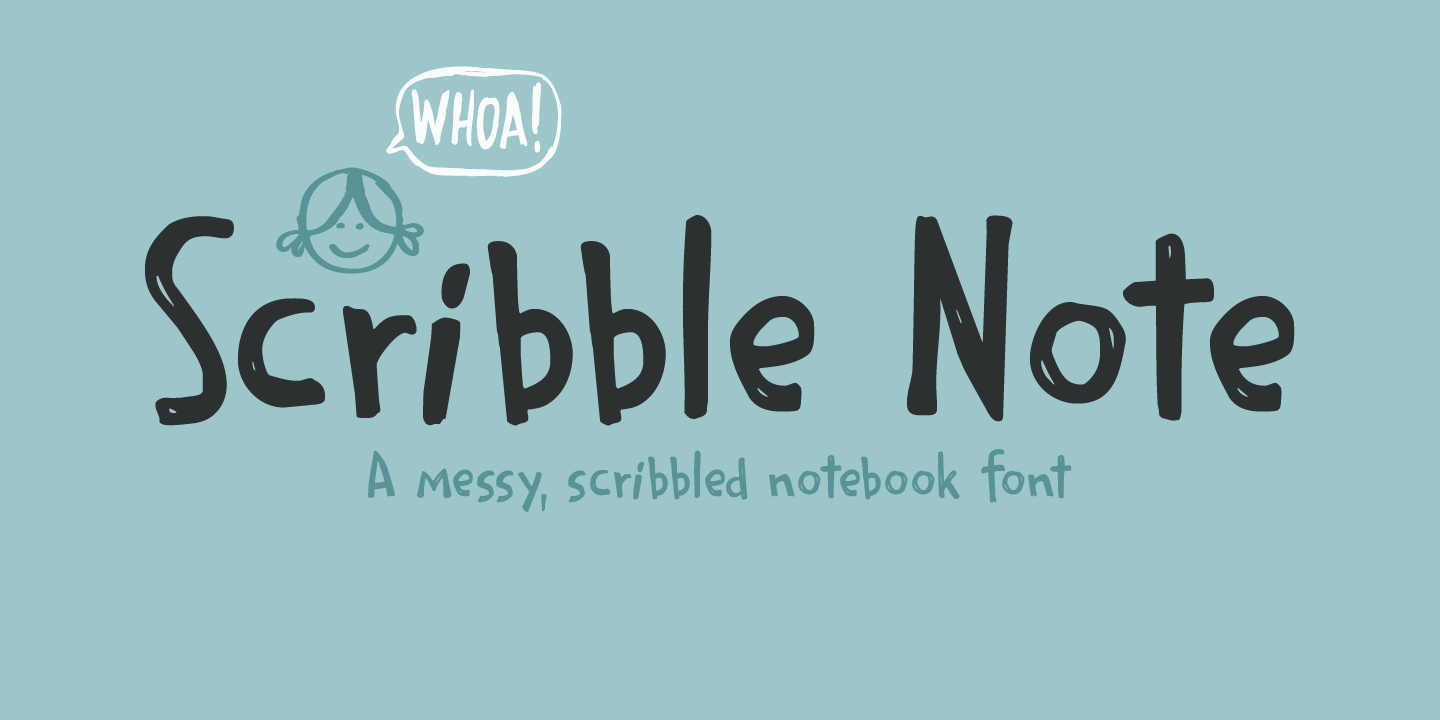
The Scribble Note Font is perfect for handwritten journals, personal diary designs, casual greeting cards, sketch-style artwork, authentic note-taking apps, creative workshop materials, artisan product labels, bohemian branding projects, organic food packaging, and artistic social media posts.
What makes the Scribble Note Font exciting is its authentic handwritten charm that perfectly captures the spontaneous energy and personal touch of genuine pen-and-paper communication. This delightful typeface features natural irregularities, organic flow, and human imperfections that create an intimate, personal connection with readers. Each character appears freshly written with a favorite pen, bringing warmth and authenticity that digital perfection simply cannot replicate.
The Scribble Note Font family includes regular, bold, light, and condensed versions, along with decorative doodles, sketched elements, and handwritten ornaments that enhance its authentic appeal across various creative applications.
Whether you're designing personal stationery or creating authentic brand communications, Scribble Note Font Free Download delivers genuine handwritten character that resonates with audiences seeking authenticity. Its naturally imperfect letterforms ensure excellent readability while maintaining that essential human touch that makes messages feel personal and sincere. The font's special features include contextual alternates, natural variations, and sketch-style ligatures that automatically prevent repetitive appearance and enhance handwritten realism. Artisan brands and creative professionals consistently choose this font for projects requiring genuine personality and human connection. The Scribble Note Font transforms digital text into heartfelt handwritten communication, making it an indispensable tool for any designer's authentic typography collection.